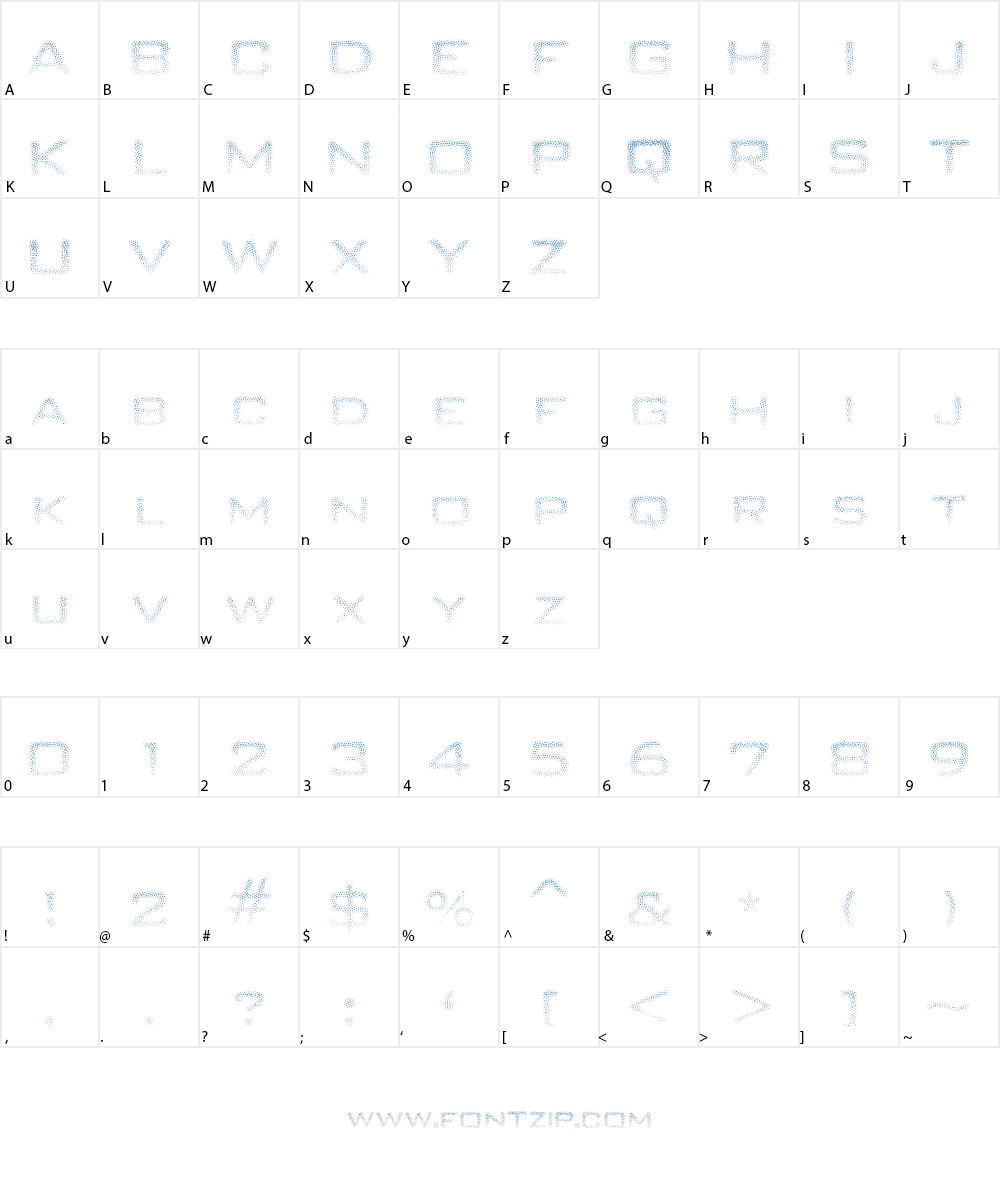
This font is inspired by of a specific artist, a sensual dancer named Unity. My wife and I are fans of her work, and fans of her, personally: she's a positive soul, expressive and open and joyous. Her dancing is celebratory, affectionate, and genuine. She's good company. This font is dedicated to Unity, and to her dance.
Unity dances (and, I suspect, lives) in the moment, and I wanted her font to feel airy and un-tethered, a grounded shape rendered into something freer and more spirited. The base font is the observer, transformed by Unity's dance into a freely swirling pattern of dots, going from light to lighter, feet never quite touching the ground. Even the choice of patterns is very particular; it's based on old acetates used (many years ago) by architects and engineers in graphic presentations ... Unity worked for years in aerospace engineering, and even in her dance, air is the element I associate most with her: purposeful, flowing, more powerful than the eye can tell. Unity is both intellect and spirit.
So, UNITY DANCES is a distressed font (tip of the hat to the immortal Morris Fuller Benton, who, in 1930, created the classic base forms) that isn't so much distressed as transformed, happily ... I hope you enjoy it (and I hope Unity does, too).
UNITY DANCES is a full-keyboard small-caps set (excluding the underscore, for thematic reasons), with a small handful of extra characters (including the Pound Sterling, cent, and Euro symbols). Additional glyphs are available by private commission for licensed users.